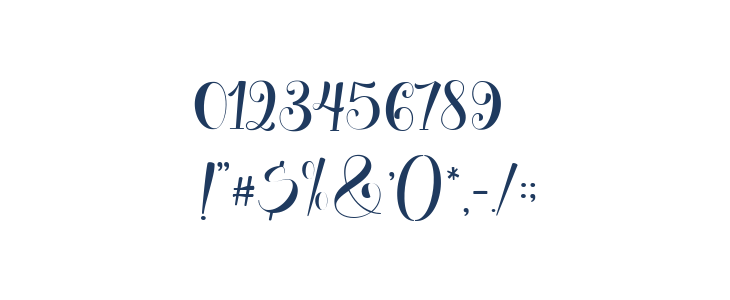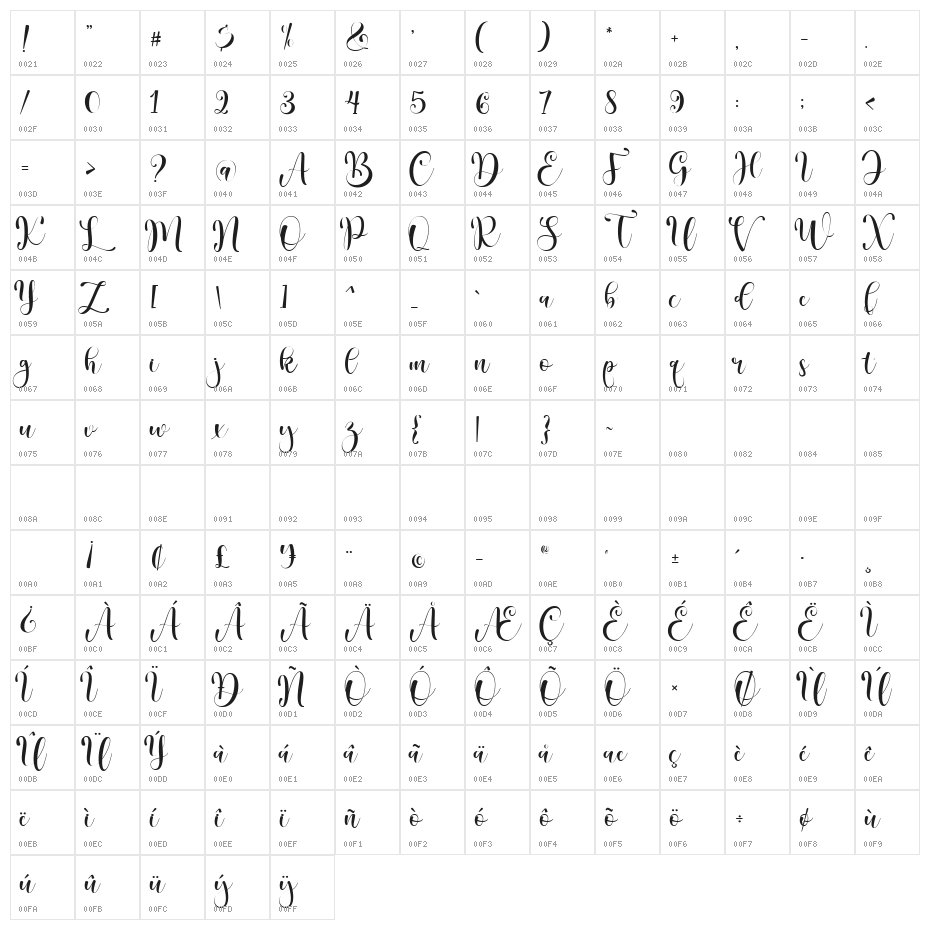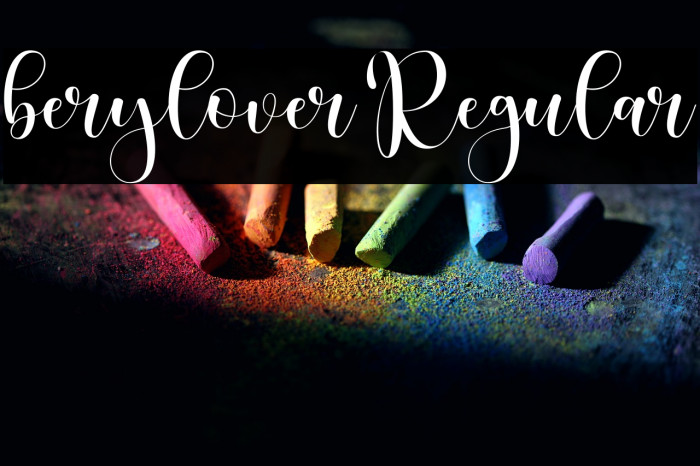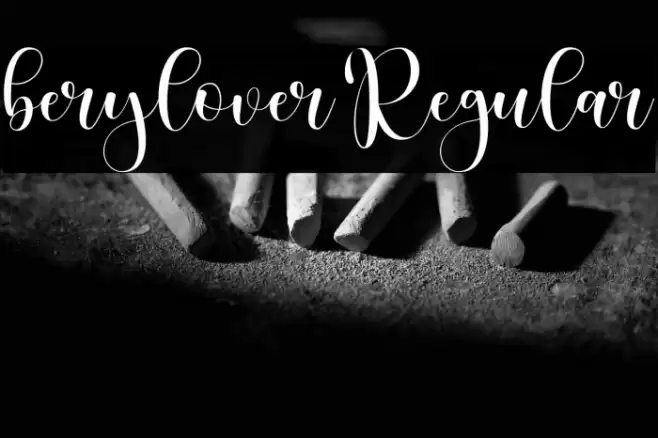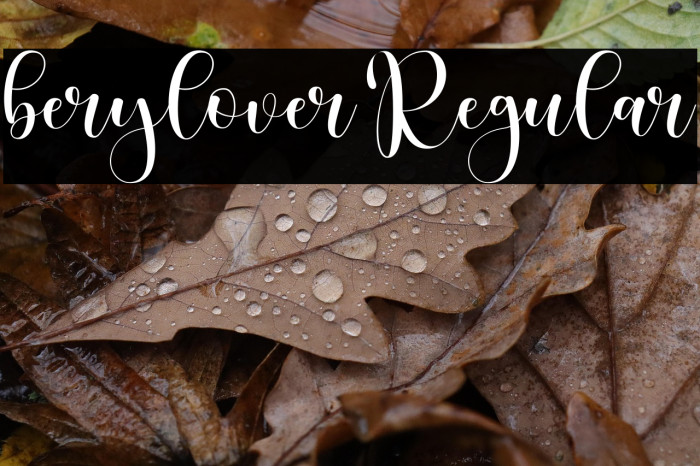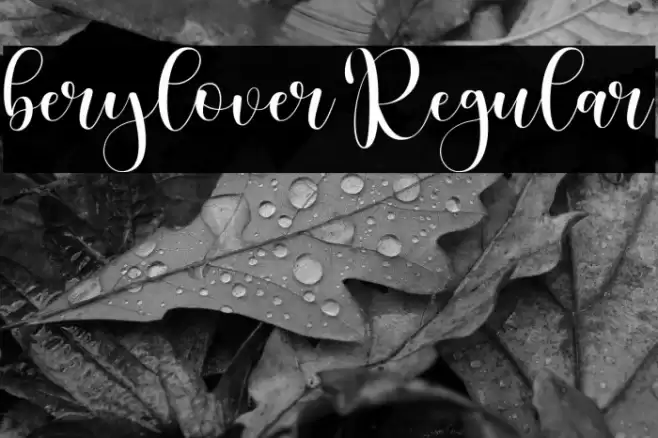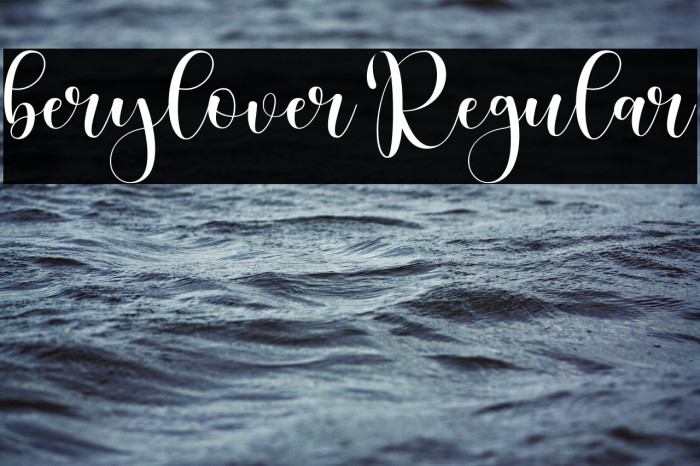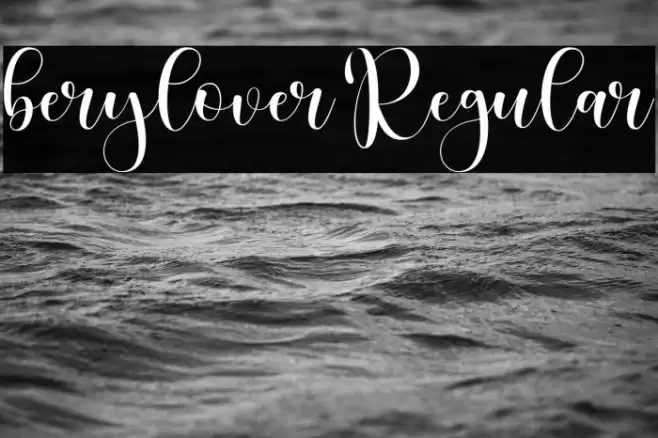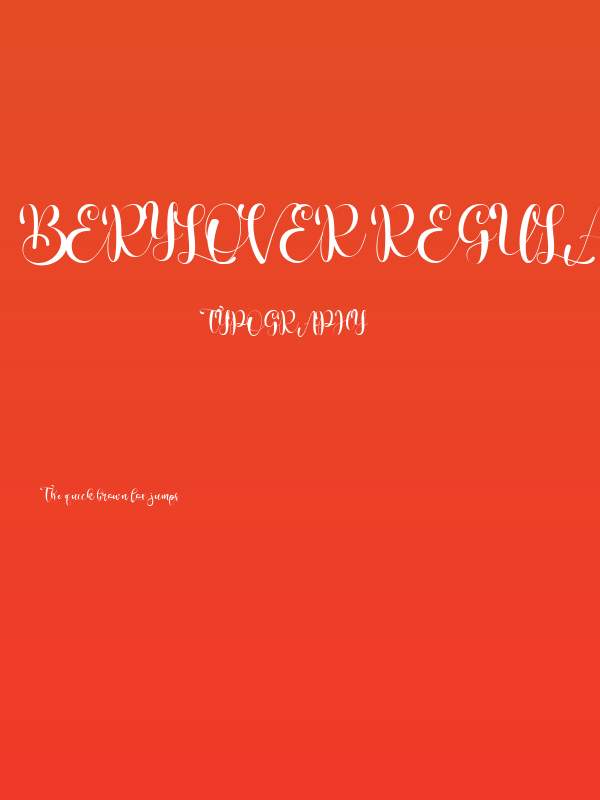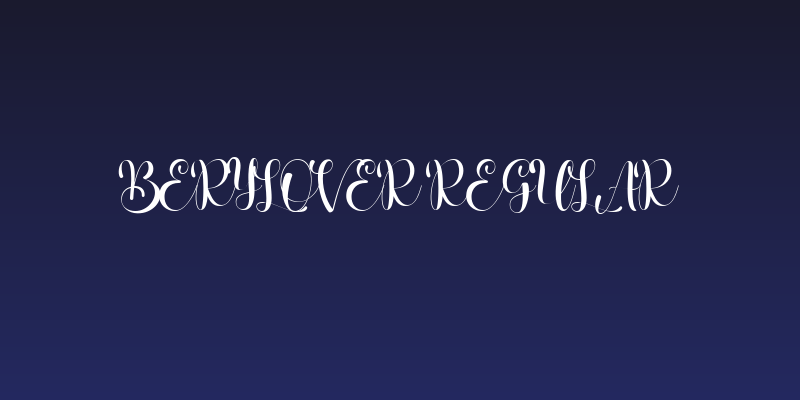
berylover Regular Font
berylover Regular Description
This font features an elegant and flowing script style, characterized by its intricate swirls and loops. The uppercase letters are particularly ornate, with exaggerated flourishes that give a sense of movement and grace. The lowercase letters maintain a consistent style, with smooth curves and a slightly more restrained use of embellishments. The numbers and special characters are designed to match the overall aesthetic, ensuring a cohesive look. This font's high contrast between thick and thin strokes adds to its sophisticated appearance, making it ideal for formal and decorative uses.
| Use Case | Logos, Invitations, Decorative Headlines |
| Proposed Projects | Ideal for wedding invitations, elegant branding, luxury packaging, and decorative headlines. |